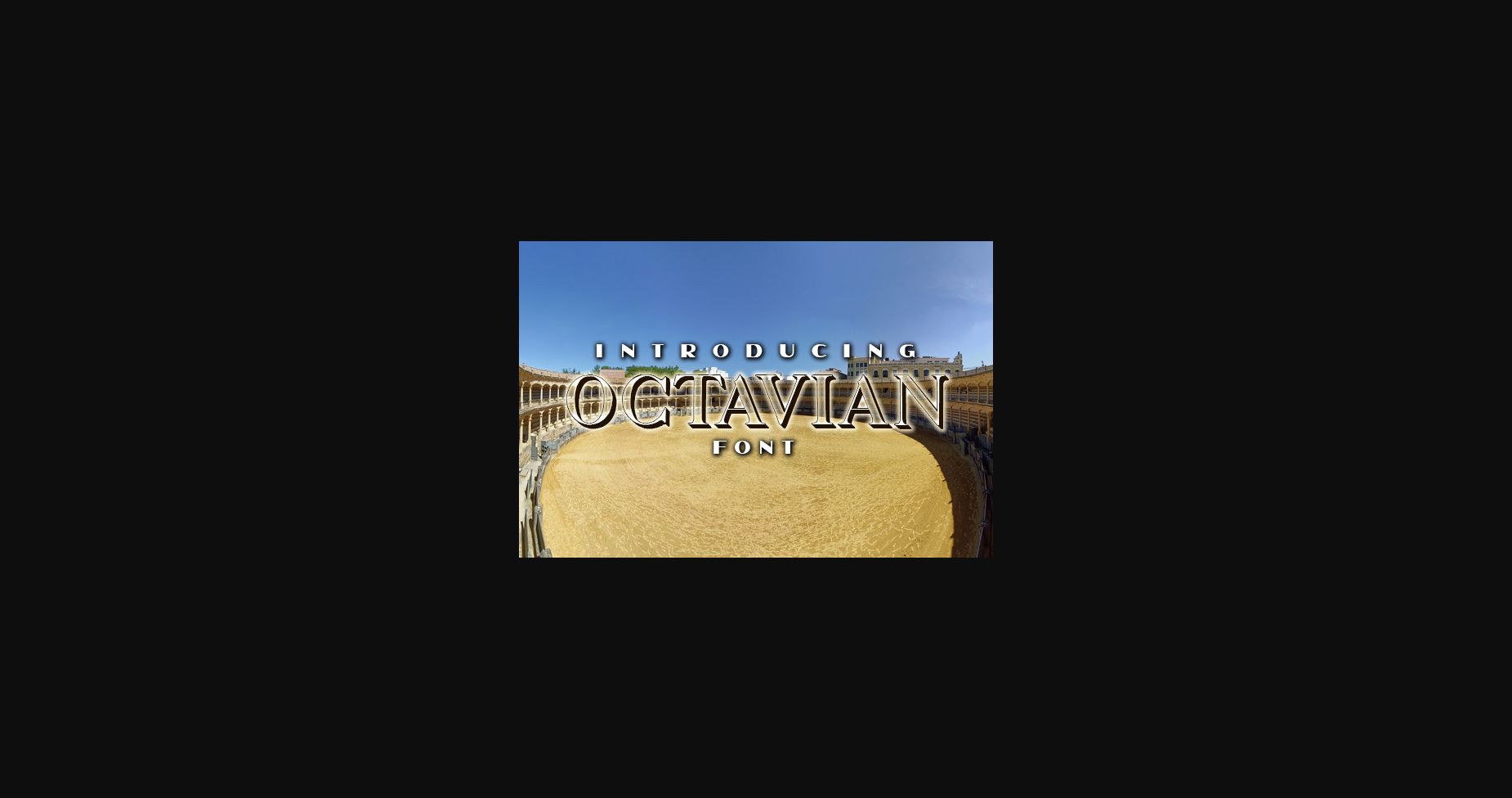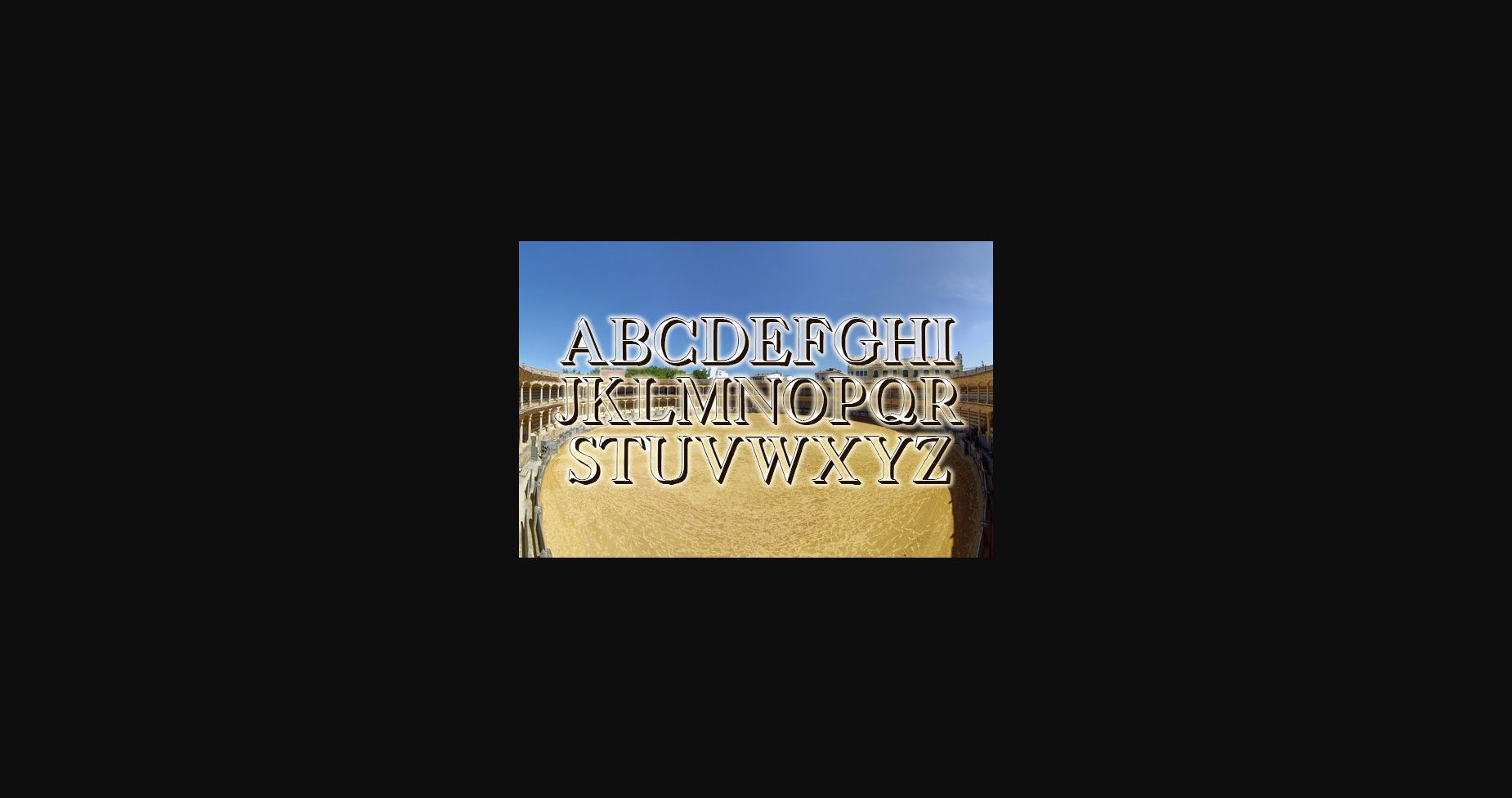
HomeSans Serif FontsOctavian Font Sans Serif Fonts Octavian Font FacebookXPinterestWhatsApp 1 of 5 ... Octavian Font Poster 2... Octavian Font Poster 3... Octavian Font Poster 4... Octavian Font Poster 5... About Octavian Font Octavian is an elegant 3D sans serif font that will look stunning on any of your designs. Use this font on posters, flyers, and t-shirts. DOWNLOAD NOW People also explored Winter Flowers Font Lavida Coral Can Cooler Mockup Breathtaking Font Vanilla Latte Font Dear Mother Font Mountain Autumn Font Thuckies Font Hermalia Font 261 0 TagsOctavian Font Previous articleStrange Dreams FontNext articleKento Font LEAVE A REPLY Cancel reply Comment: Please enter your comment! Name:* Please enter your name here Email:* You have entered an incorrect email address! Please enter your email address here Website: Save my name, email, and website in this browser for the next time I comment. Personal Use Free Rembank Personal Use Free Read more about this font Love Story Personal Use Free Read more about this font Theobald Personal Use Free Read more about this font Harmony Personal Use Free Read more about this font BLOG Using Fonts in Digital Marketing: Tips to Strengthen Your Brand Identity In the realm of digital marketing, every visual element plays a crucial role in shaping a brand's identity, and fonts are no exception. The... Best Fonts for YouTube Videos: Make Your Thumbnails Stand Out Where to Buy American Fonts Online in 2024 How to Install and Use Fonts on Windows, macOS, and Web Projects